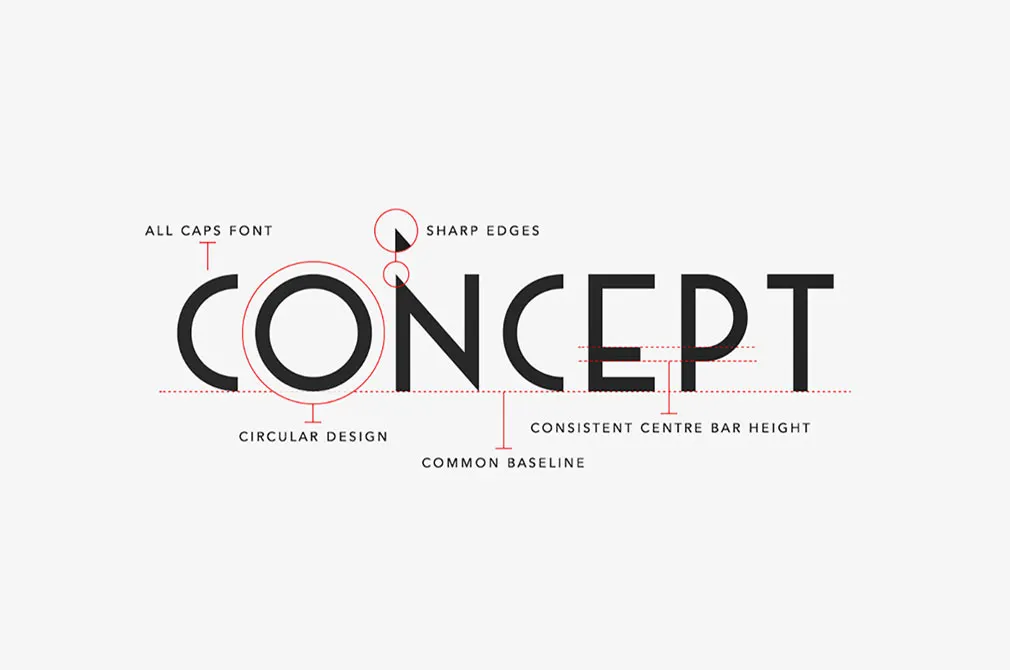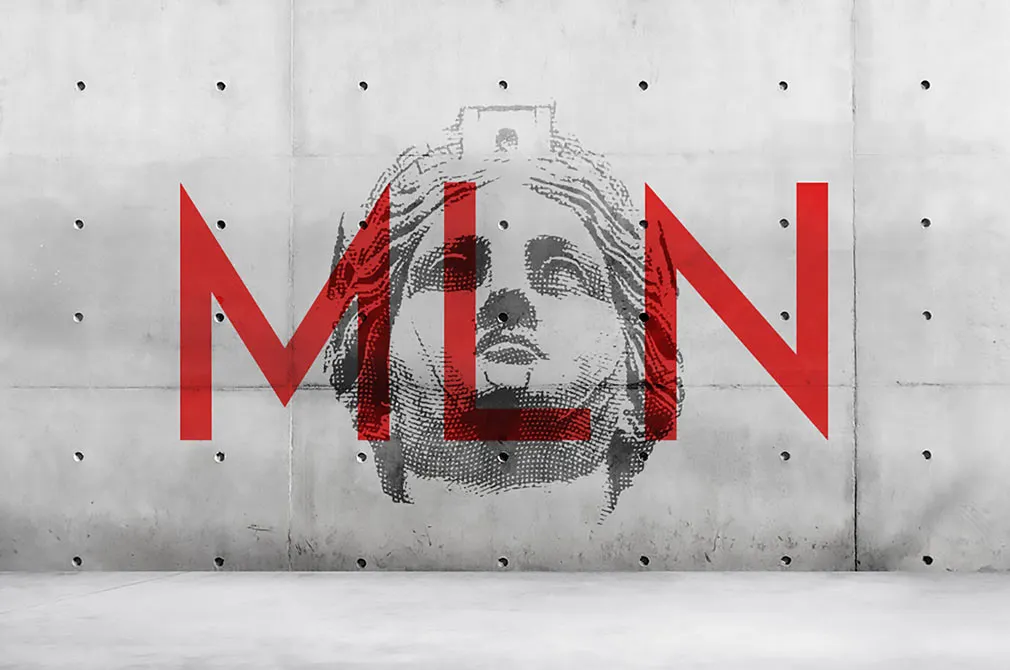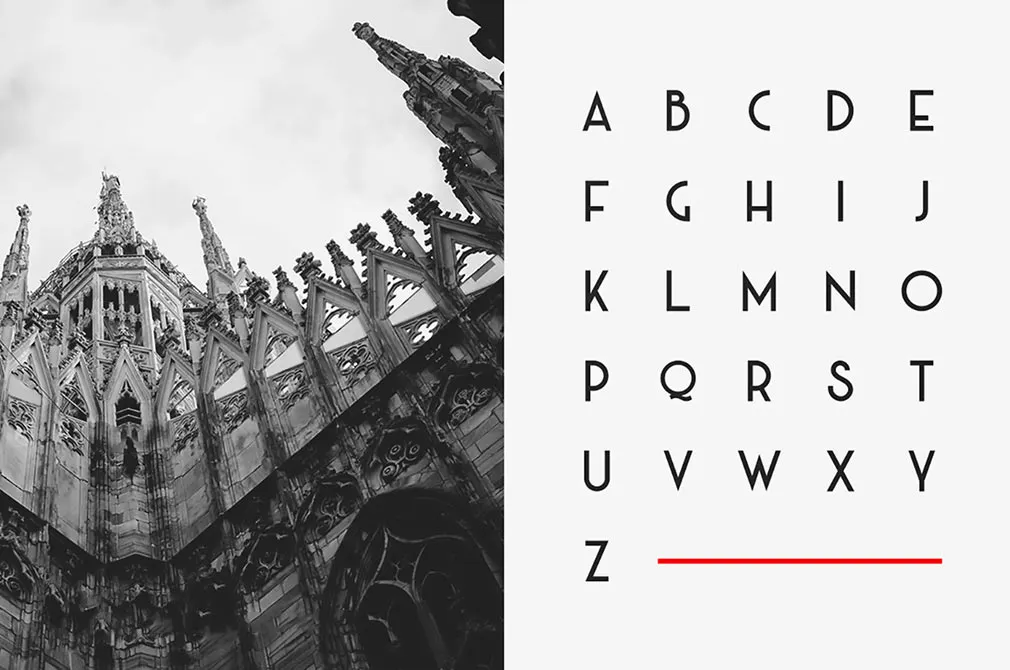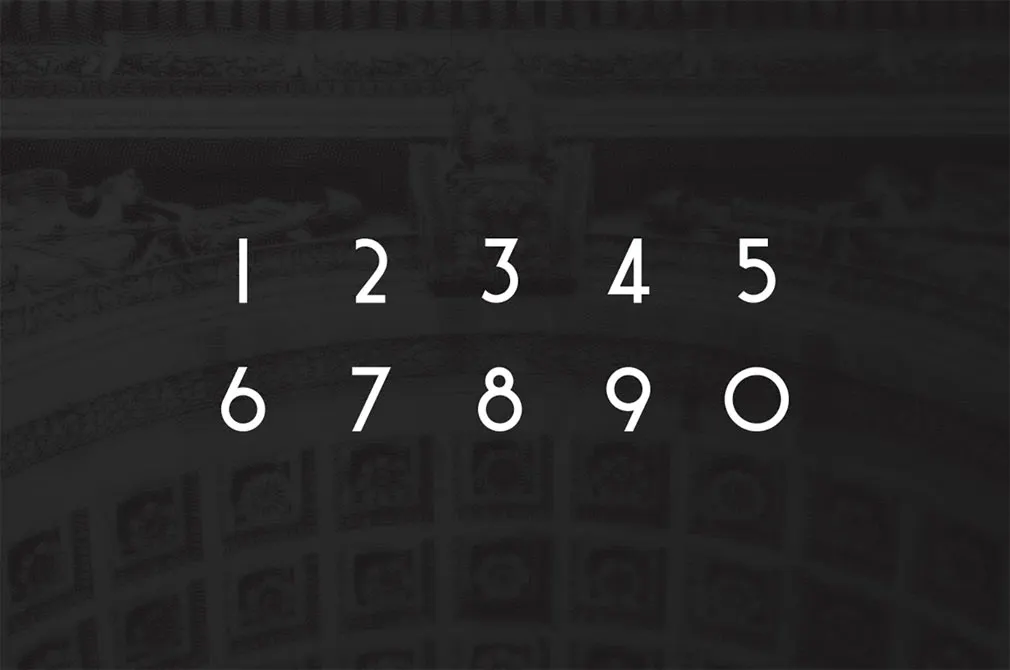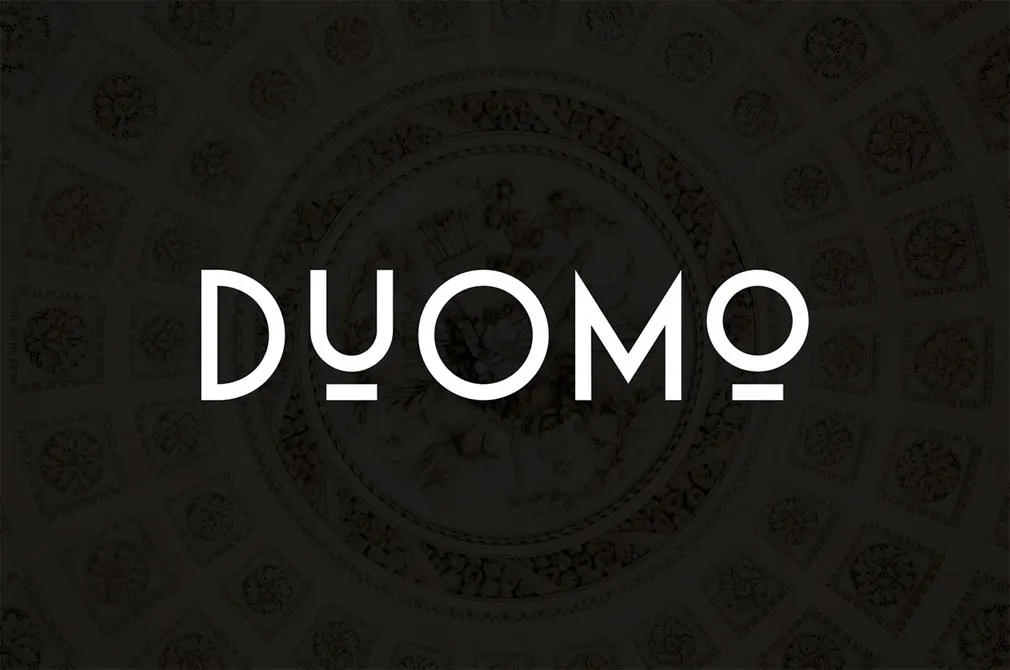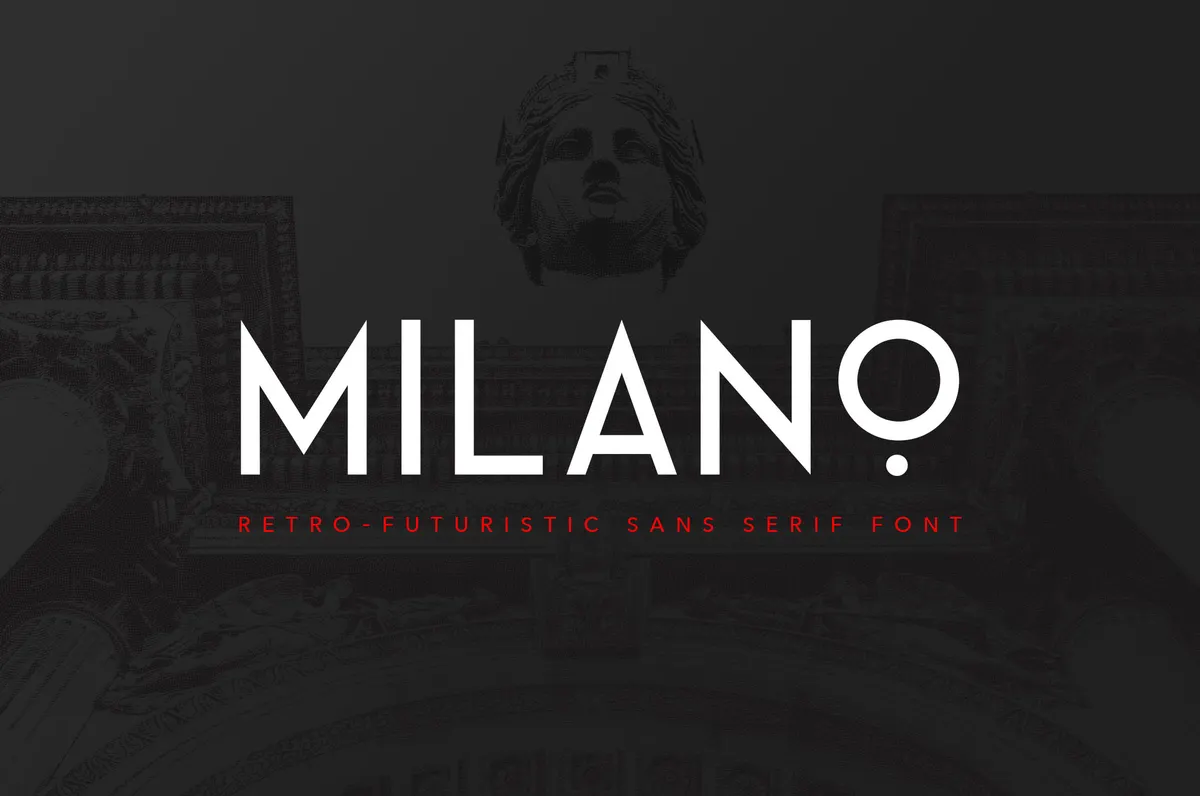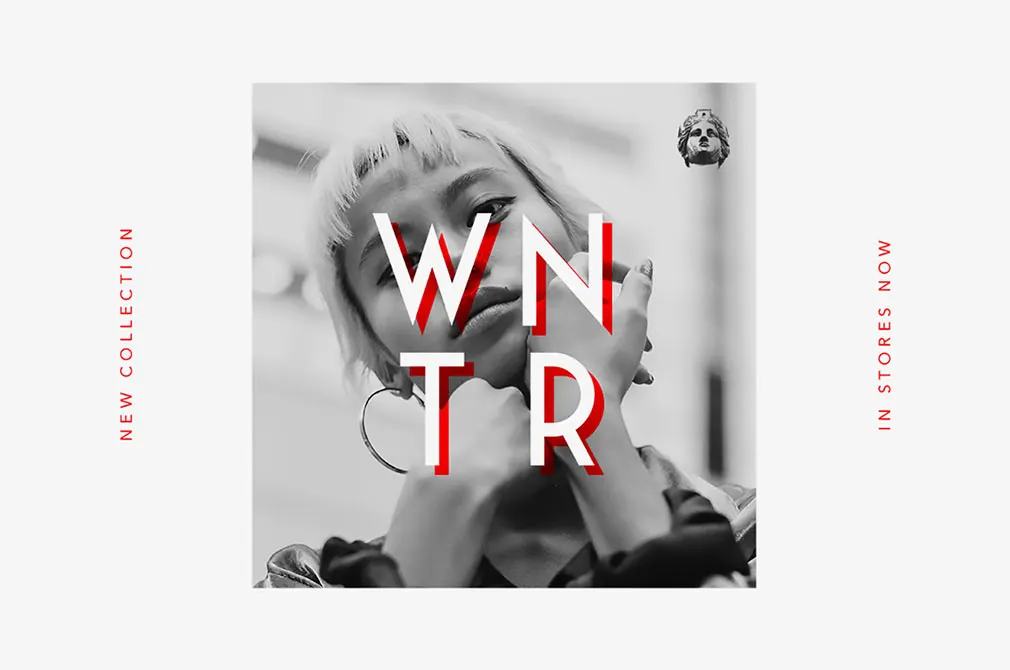
Milano Sans Serif Font
This retro-futuristic typeface is about to make your head go round as it has already done with us. Get ready to be excited with the sans serif font, that have comprised all the elegance in the world!
Milano was born as a result of merging geometric sans of the past century with contemporary design currents it has found the precious middle ground, making the font so special. Sharp edges and clean letterforms are presented in every character of a multi-lingual alphabet, ligatures, alternates, and 300 glyphs. The pleasant detail will be to discover the open type support for small caps and superiors. The use of this font for headlines, logos, design identity, typography, posters, web design, and social media is out of the question!